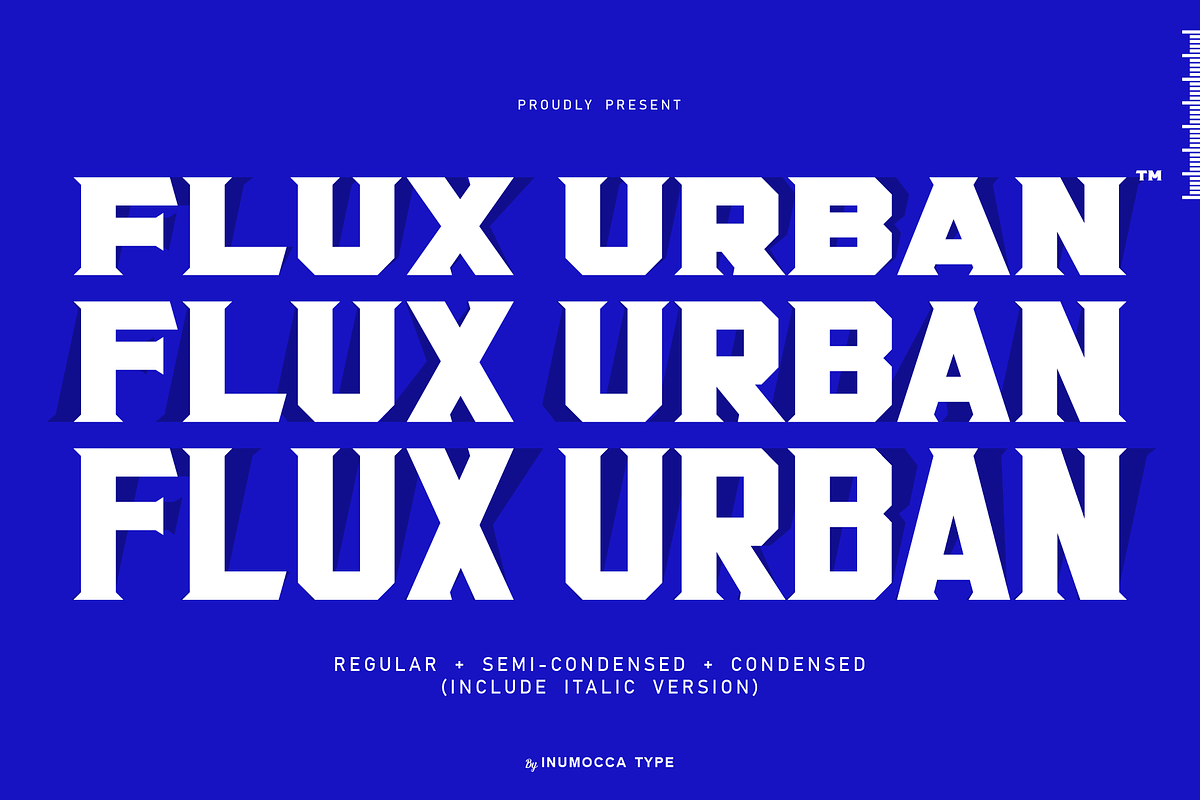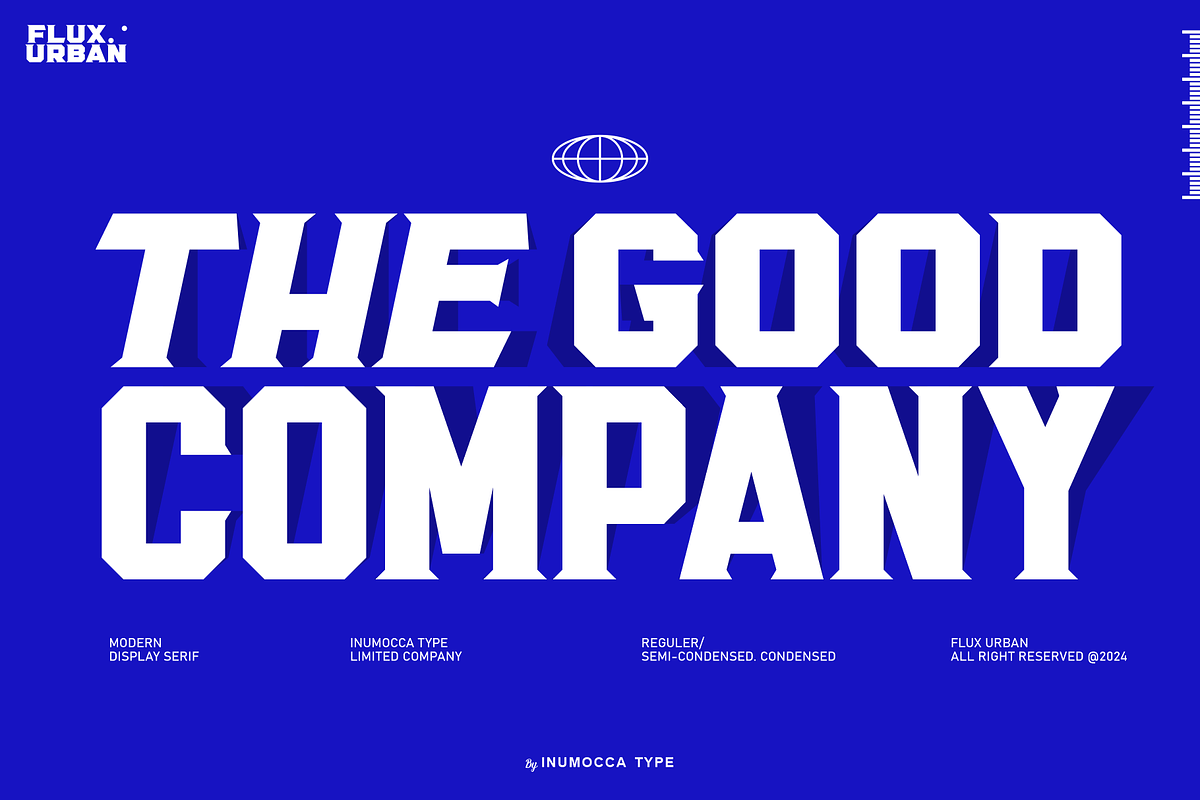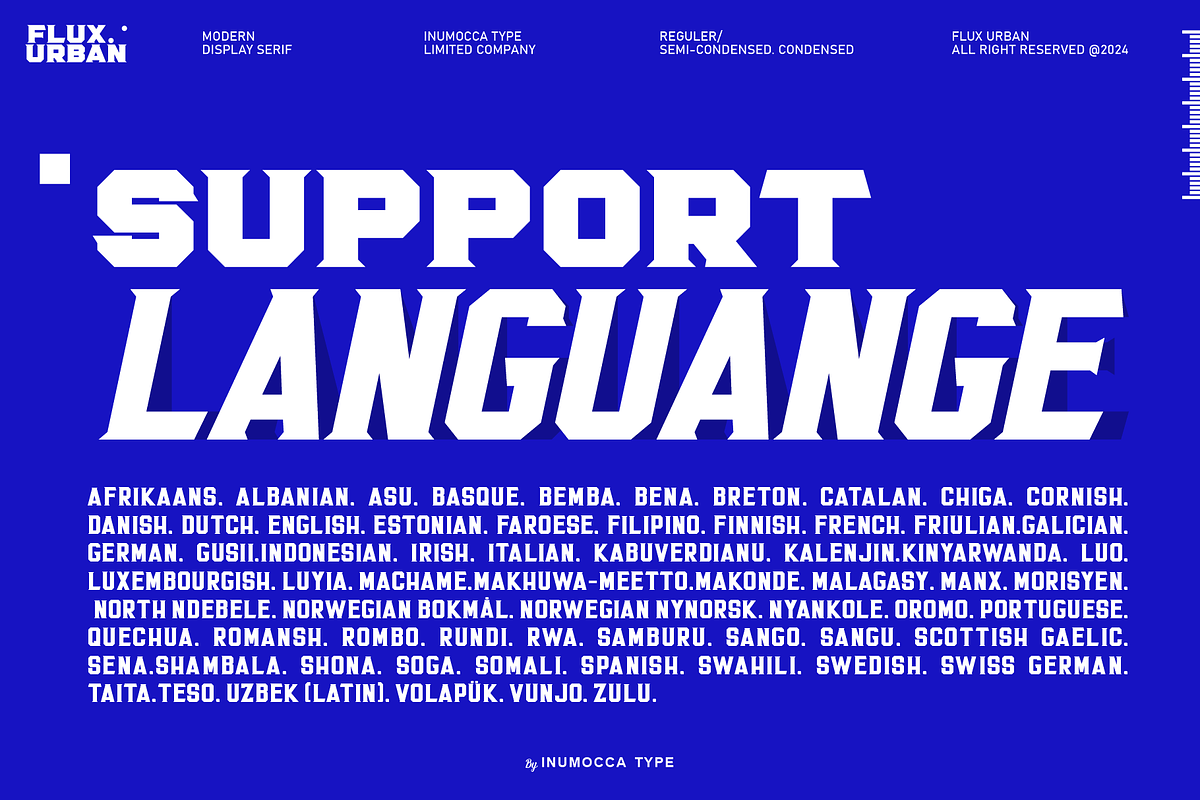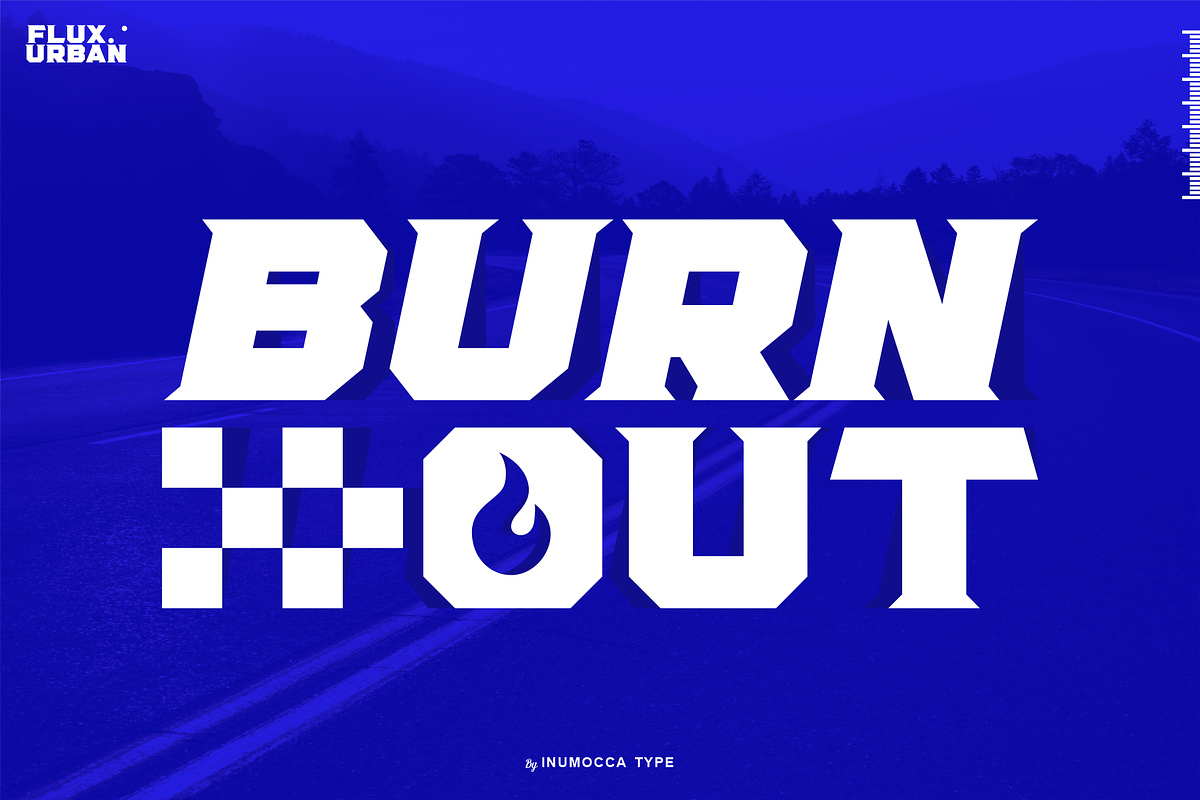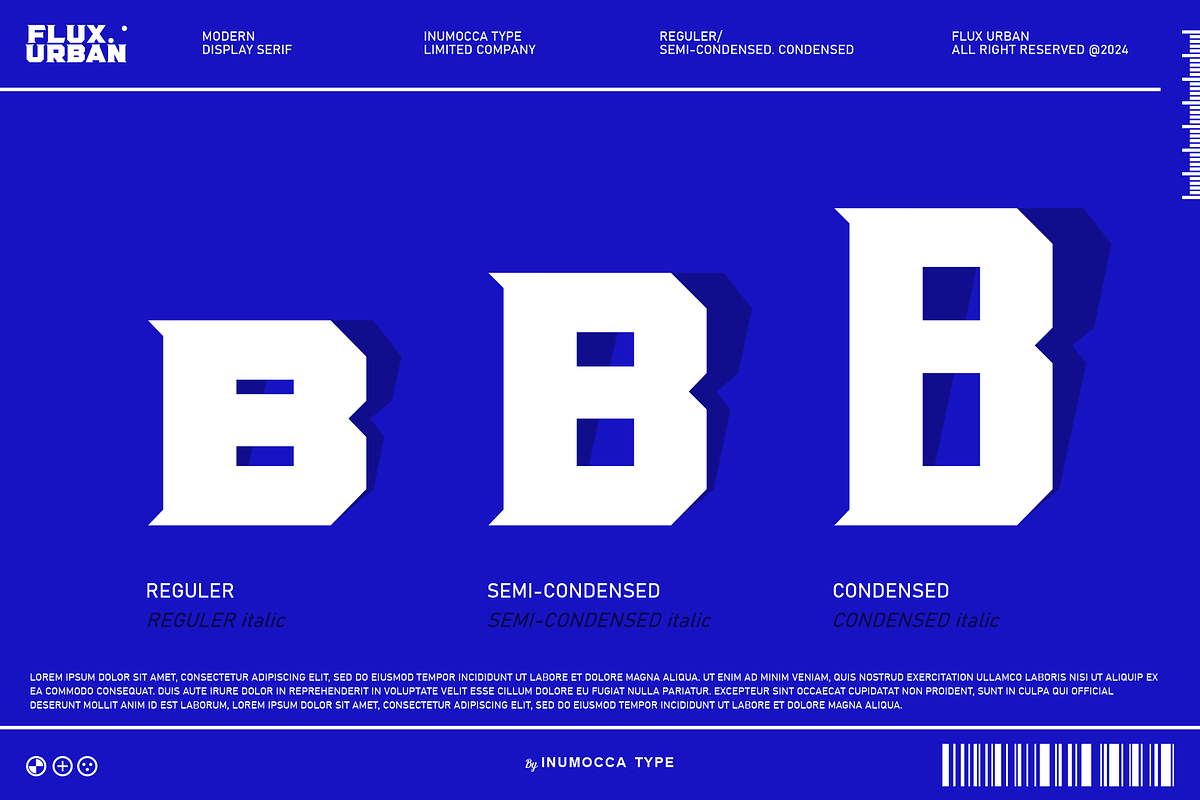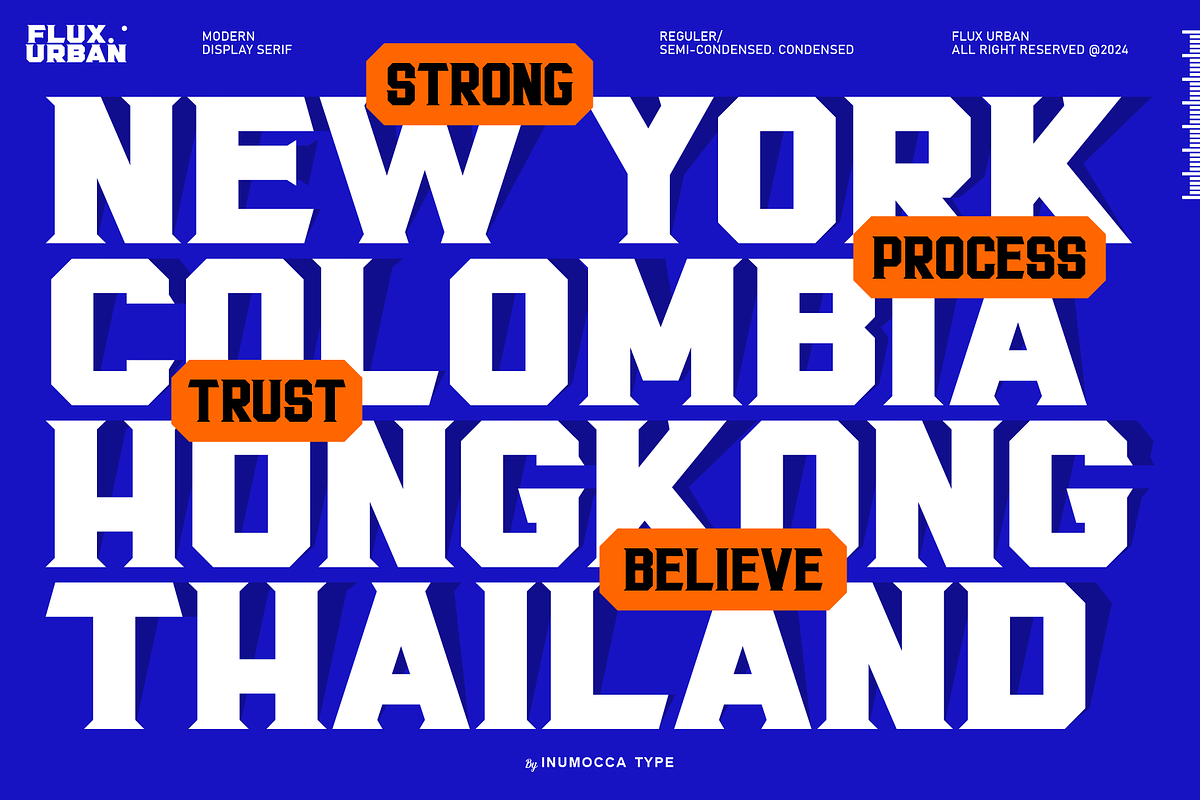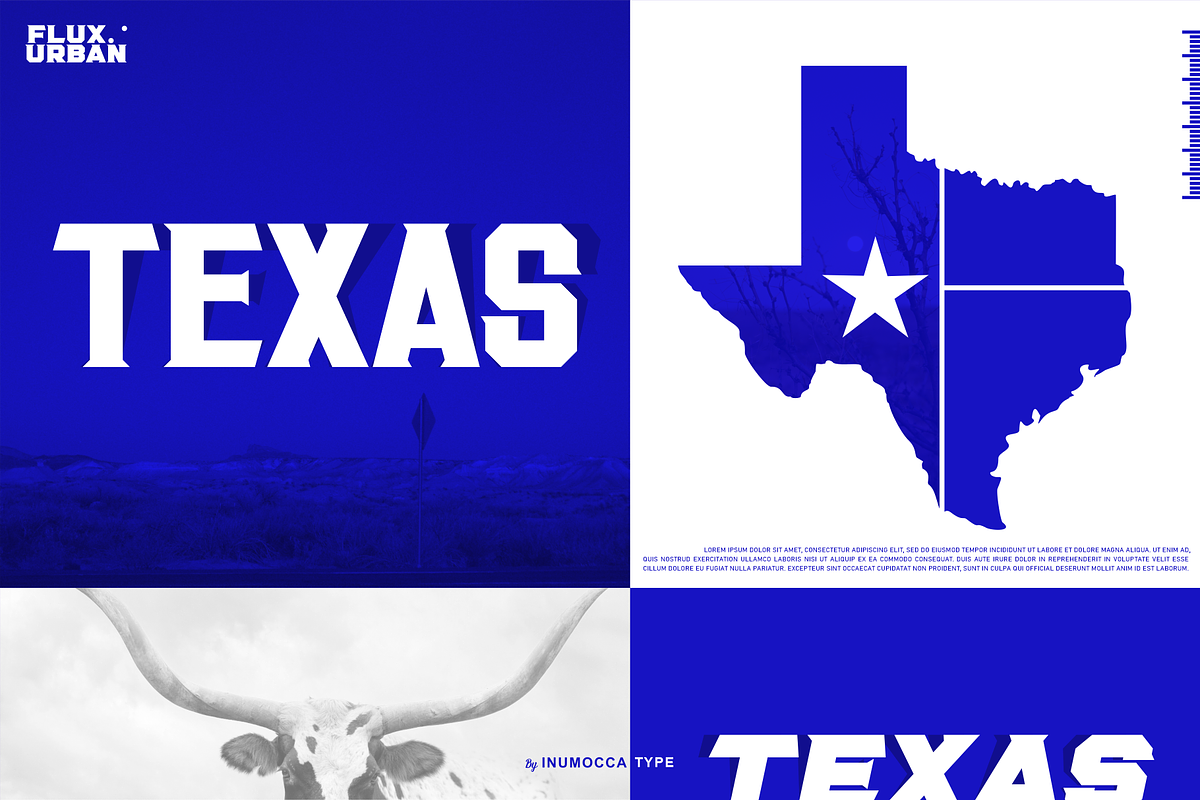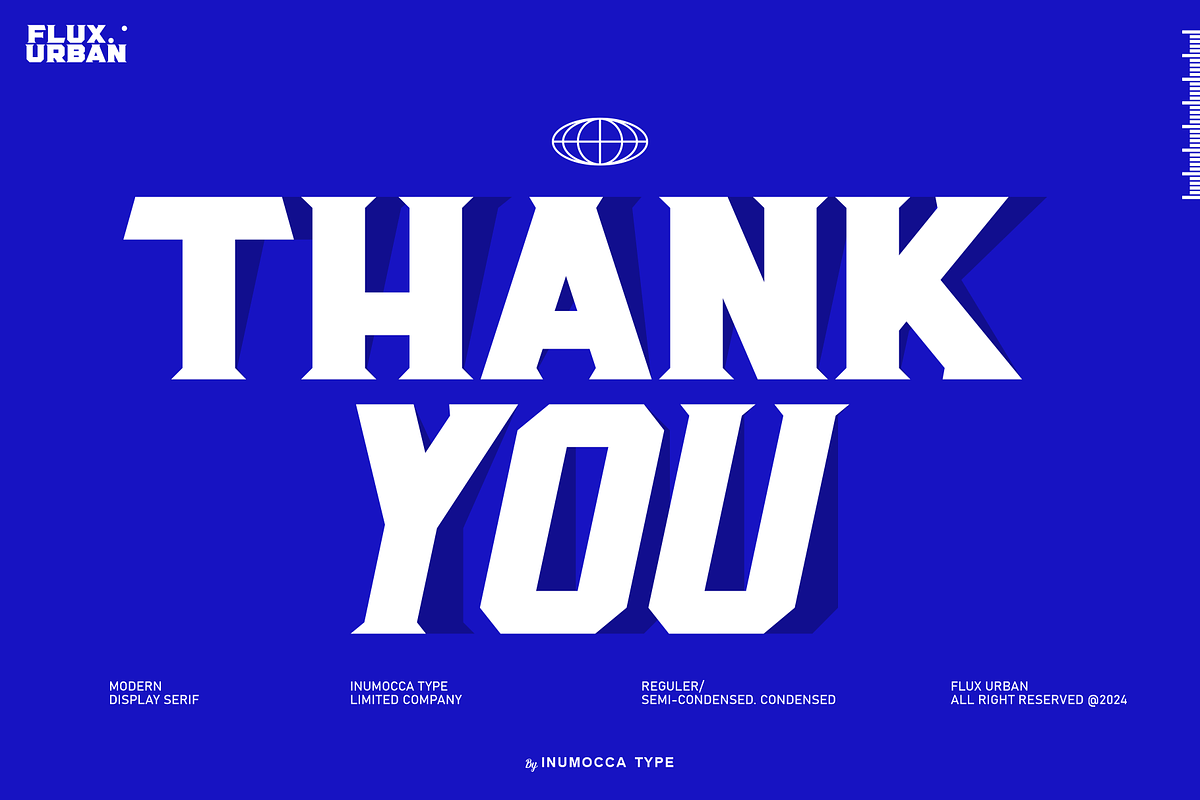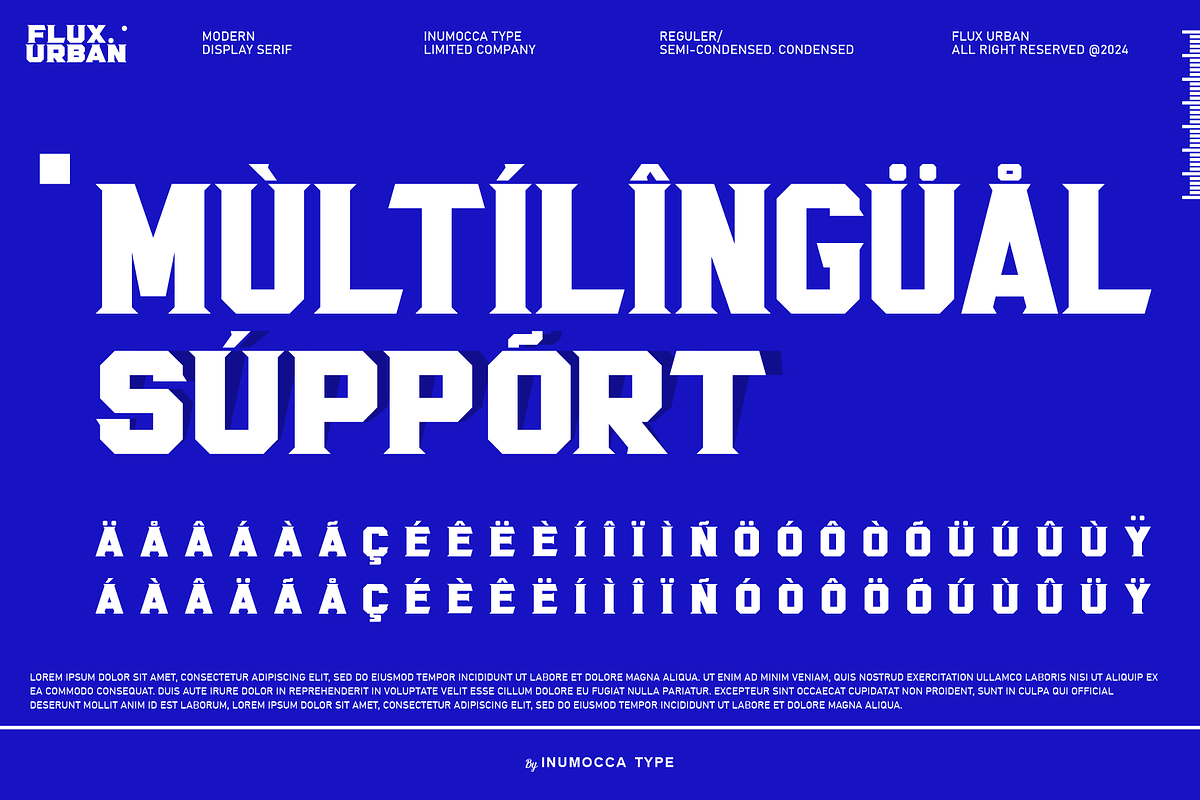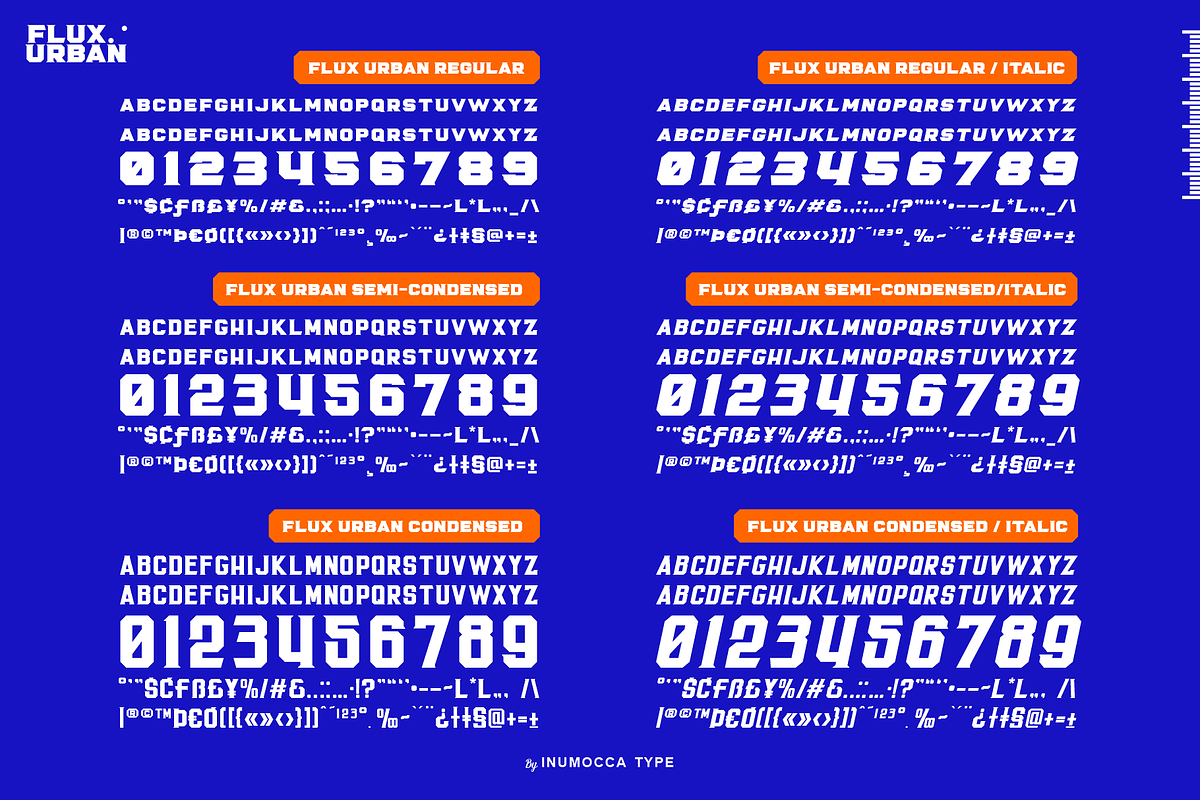
Flux Urban
Flux Urban Modern Serif font , a Dinamic Uppercase alphabet style, with bold geometric shapes add strength to any visual appeal, like Branding, Movie Title, Headline Letter, Bookcover or Book Content, Magazine cover, Poster, Quotes Lettering, Logos, and more your project design.
- Unique glyphs
- Multilingual Characters
- UPPERCASE
- Numeric
- Symbol
- Punctuation Character
-Flux Urban Regular (include Italic) -Flux Urban Semi-Condensed (include Italic) -Flux Urban Condensed (include Italic)